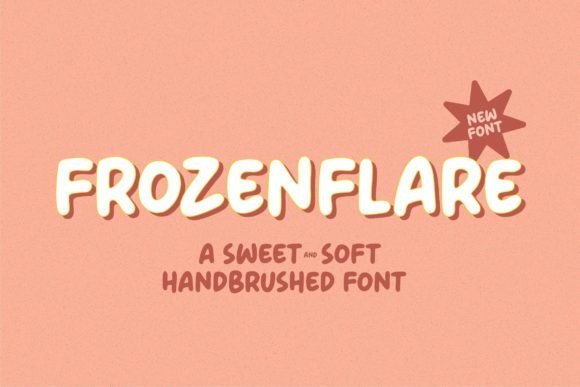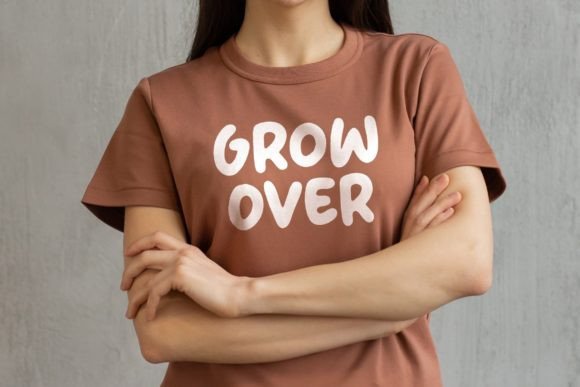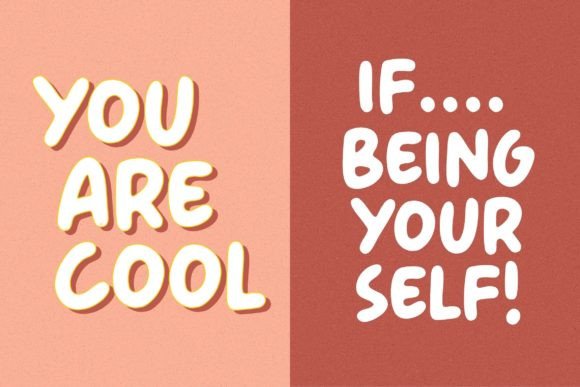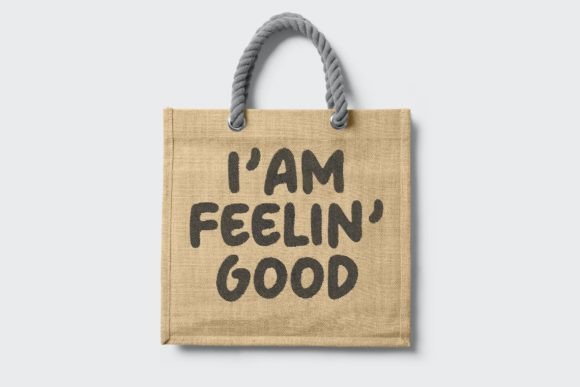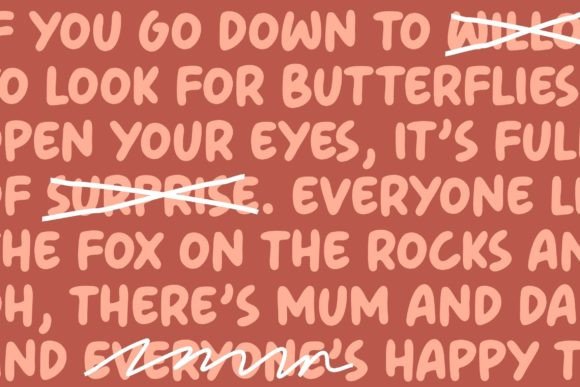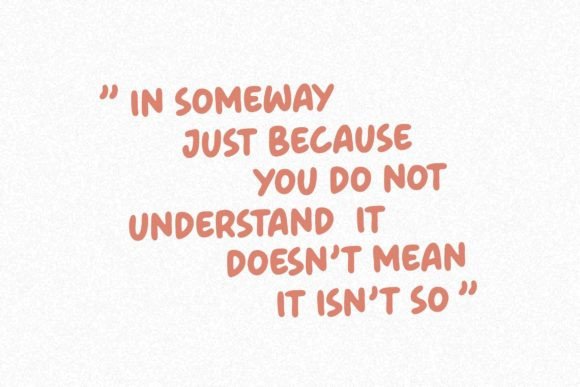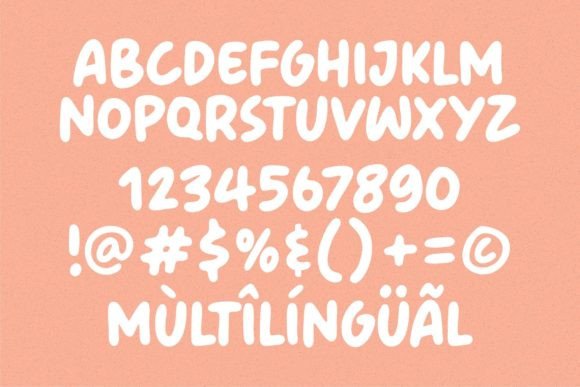
A Sweet Addition to Your Font Library
Have you ever found yourself staring at a blank canvas, waiting for the perfect spark to ignite your creativity? It’s a moment we’ve all been in – the blank page, the empty screen, the uncertainty of what to create next. But what if you had the right tool to set your imagination ablaze?
Enter the Frozenflare Font, a delicate and charming hand-brushed font designed to elevate any project. Whether you’re crafting a warm greeting card, a whimsical children’s book, or a romantic wedding invitation, Frozenflare Font is the perfect companion to bring your vision to life. Its soft, gentle curves and subtle nuances make it an invaluable asset to any designer’s toolkit.
Frozenflare Font Key Features
- Font Family: Frozenflare, a unique and stylish font designed for modern applications.
- Font Size: The font comes in 7 weights, ranging from Light (300) to Black (900), providing flexibility for various design needs.
- Unique Characteristics: Frozenflare Font features a distinctive, modern design with a unique blend of geometric and organic elements, adding a touch of elegance to any project.
- Character Set: The font includes a comprehensive character set, supporting a wide range of languages, including Latin, Cyrillic, and Greek scripts.
Frozenflare Font Review
I recently had the chance to work with the Frozenflare font, and I must say it’s a unique addition to any design project. Here’s my honest review:
- Unconventional style: Frozenflare’s irregular shapes and lines give it a distinct, hand-drawn feel that’s perfect for creative or artistic projects.
- Expressive character set: The font’s various letterforms and symbols make it ideal for projects that require a touch of whimsy or playfulness.
- Good legibility: Despite its unconventional design, Frozenflare is surprisingly easy to read, especially at larger sizes.
- Not suitable for body text: Frozenflare’s unique style may not be the best choice for large blocks of text, as it can be overwhelming and difficult to read.
- Limited font sizes: The font’s irregular shape can make it difficult to scale, especially at smaller sizes.
- May not work well with all color schemes: Frozenflare’s bold, expressive design may clash with certain color combinations, so it’s essential to choose a palette that complements the font.
Frozenflare is a great addition to any designer’s toolkit, but it’s essential to use it thoughtfully and judiciously. When used correctly, it can add a touch of creativity and whimsy to your projects. However, it’s not a good choice for large blocks of text or projects that require a more traditional, straightforward design approach.
Use the Frozenflare font for titles, headings, and emphasis. Experiment with different font sizes and colors to create a visually appealing design. You can also use the font in combination with other fonts to create a unique look.
The Frozenflare font is perfect for:
- Creative projects, such as graphics, posters, and flyers
- Branding materials, such as logos and business cards
- Web design, such as headings and titles
Compared to Frozenflare Font, Great Vibes has a more refined and polished look, with smoother lines and a more even texture. While Frozenflare Font has a bold, dramatic feel, Great Vibes is more subtle and understated.